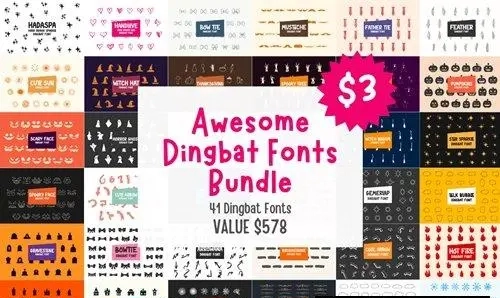
Awesome Dingbat Fonts Bundle
Introducing the Awesome Dingbat Fonts Bundle, a collection of unique and playful dingbat fonts designed to add a creative touch to your projects. This bundle features a variety of decorative symbols, icons, and illustrations that can be easily integrated into your designs.
• Diverse collection of dingbat fonts
• High-quality designs suitable for various applications
• Easy to use with clear character maps
• Styles: Decorative, playful, and thematic
• Weights: Regular and bold options available
• Perfect for web design, social media graphics, and print projects
• Use in UI designs to enhance user experience